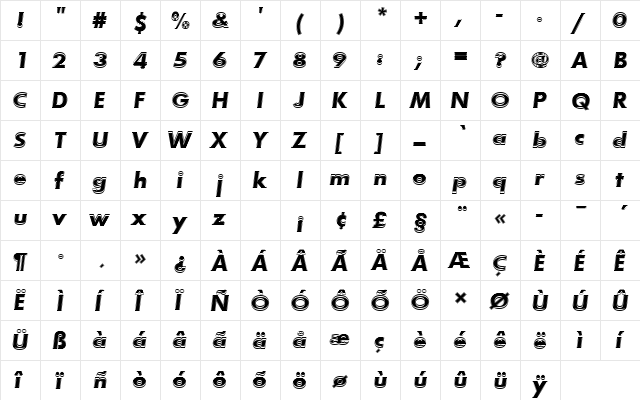
FuturaTBolOblIn1 Regular
Design Context for FuturaTBolOblIn1 Typeface
FuturaTBolOblIn1 channels digital-age aesthetics through its sharp, structured letterforms — ideal for brands that want to signal innovation.
Pro Tip: Use FuturaTBolOblIn1 in combination with a neutral sans for body text. Let it define the brand voice in headlines while keeping reading comfortable elsewhere.